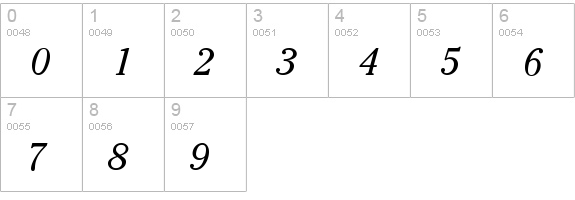
CheltenhamEF-BookItalic is a timeless and elegant font that adds a touch of sophistication to any design. Its italicized style exudes a sense of grace and refinement, making it perfect for projects that require a touch of class. With its delicate curves and flowing lines, CheltenhamEF-BookItalic is a versatile font that can be used for a variety of purposes, from invitations to branding to editorial design. Best of all, CheltenhamEF-BookItalic is completely free to download at FontsMarket.com. This means that you can elevate your designs without any cost, making it a valuable asset for both personal and commercial projects. Don't miss out on this opportunity to enhance your creations with the beauty of CheltenhamEF-BookItalic - download it today and let your creativity shine!